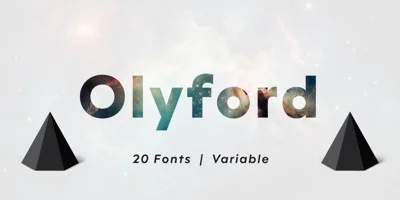
Olyford Font
Olyford Font is perfect for prestigious university branding, academic publications, traditional law firm signage, classic book publishing, historical society materials, established banking institutions, heritage luxury brands, scholarly conference materials, distinguished club memberships, and professional academic journals that require distinguished typography with institutional authority and timeless credibility.
What makes Olyford Font so exciting is its masterful embodiment of academic excellence and institutional prestige through carefully crafted letterforms that convey wisdom and scholarly tradition. This font features refined proportions and classical character structures that evoke the hallowed halls of prestigious universities and established institutions. The sophisticated design approach balances traditional authority with contemporary functionality, creating typography that commands respect while remaining highly readable across both digital and print academic applications.
The Olyford Font family includes multiple weights and styles: Light, Regular, Medium, Bold, Black, and their corresponding Italic variants. Each weight maintains the signature scholarly character while offering comprehensive flexibility for academic design applications and institutional typographic hierarchies.
Academic designers consistently choose Olyford Font for projects requiring authoritative typography that embodies intellectual rigor and institutional excellence. Whether you're developing university brand materials, creating scholarly publications, designing prestigious event invitations, or crafting distinguished professional communications, this font delivers exceptional gravitas and academic authenticity. The font's comprehensive character set includes scholarly symbols and supports multiple languages while ensuring optimal legibility across all academic platforms and publications, making it an essential tool for designers working on institutional projects that demand distinguished, credible, and academically sophisticated typography solutions with timeless educational authority and scholarly elegance.